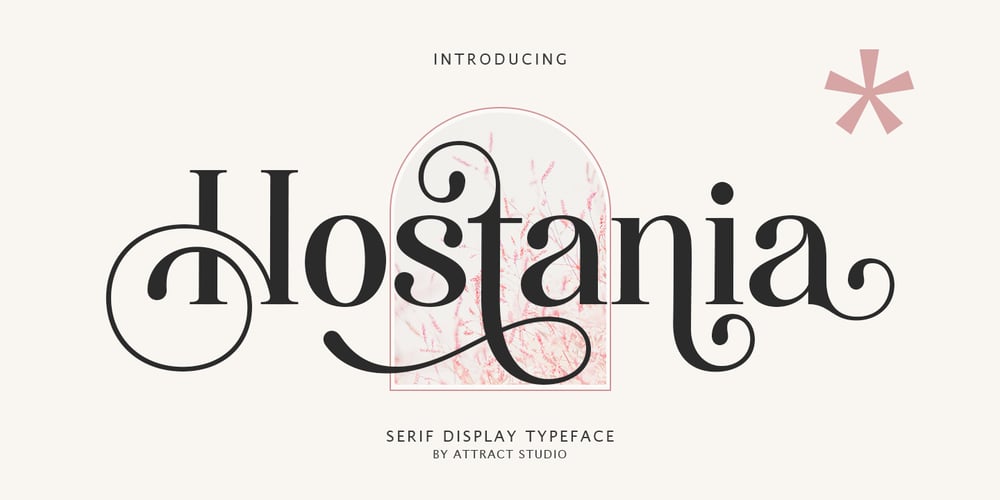
Hostania Font Family was designed by Muammar Kadafi and published by Attract Studio. Hostania contains 1 styles and family package options. Hostania is a beautiful and nostalgic serif typeface that looks amazing in both large and small settings as both display and body text. Best used as a showcase for titles and logos, sharp curves and a decorative alternative that give any project an extra touch of class.Includes: Alternative Styles Multiple Languages Supported PUA Encoded Characters.